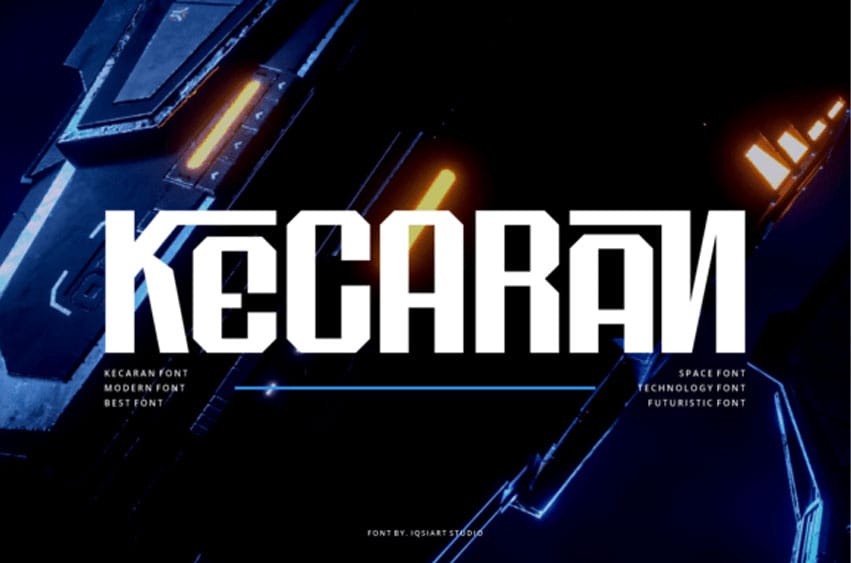
Kecaran Font is a bold, futuristic display font crafted for tech-forward and sci-fi-inspired designs. With sharp geometric angles and a space-age aesthetic, it’s perfect for gaming titles, tech branding, posters, and UI interfaces.
The unique letterforms give Kecaran a powerful presence, making it ideal for digital environments that demand innovation and edge. Make your designs feel advanced, energetic, and out of this world.